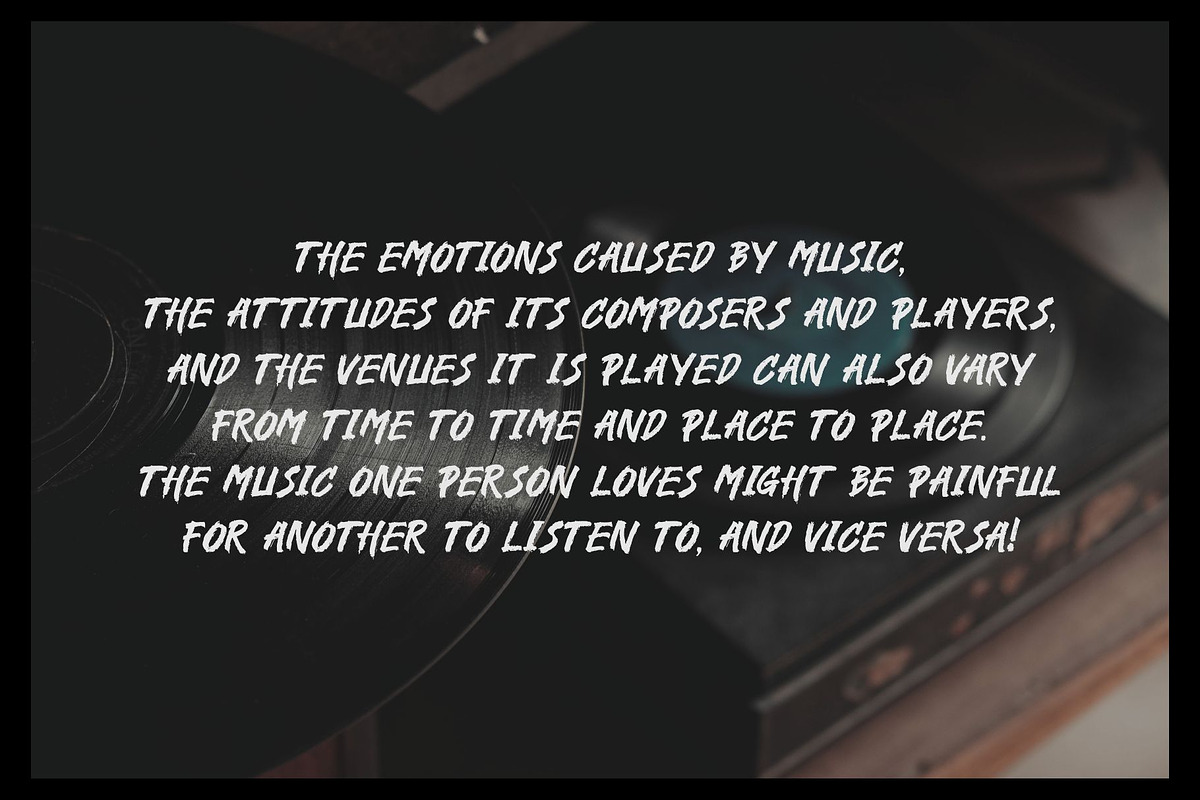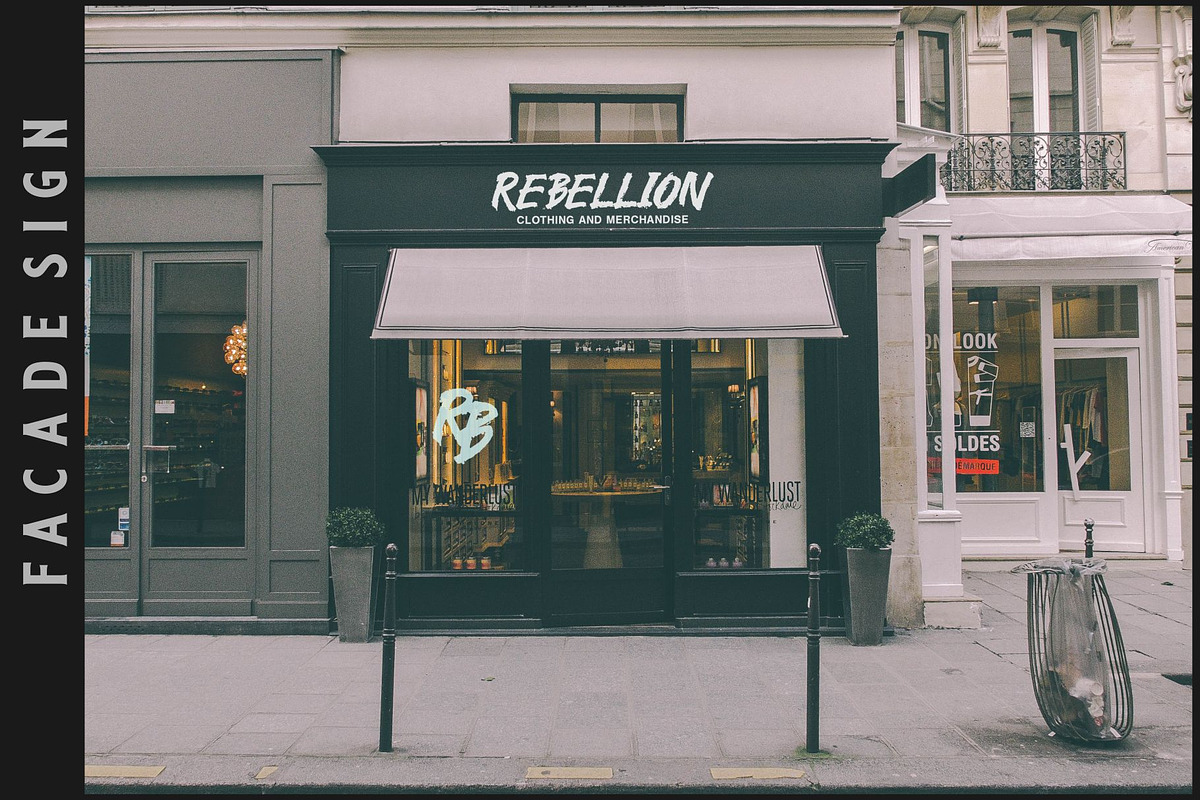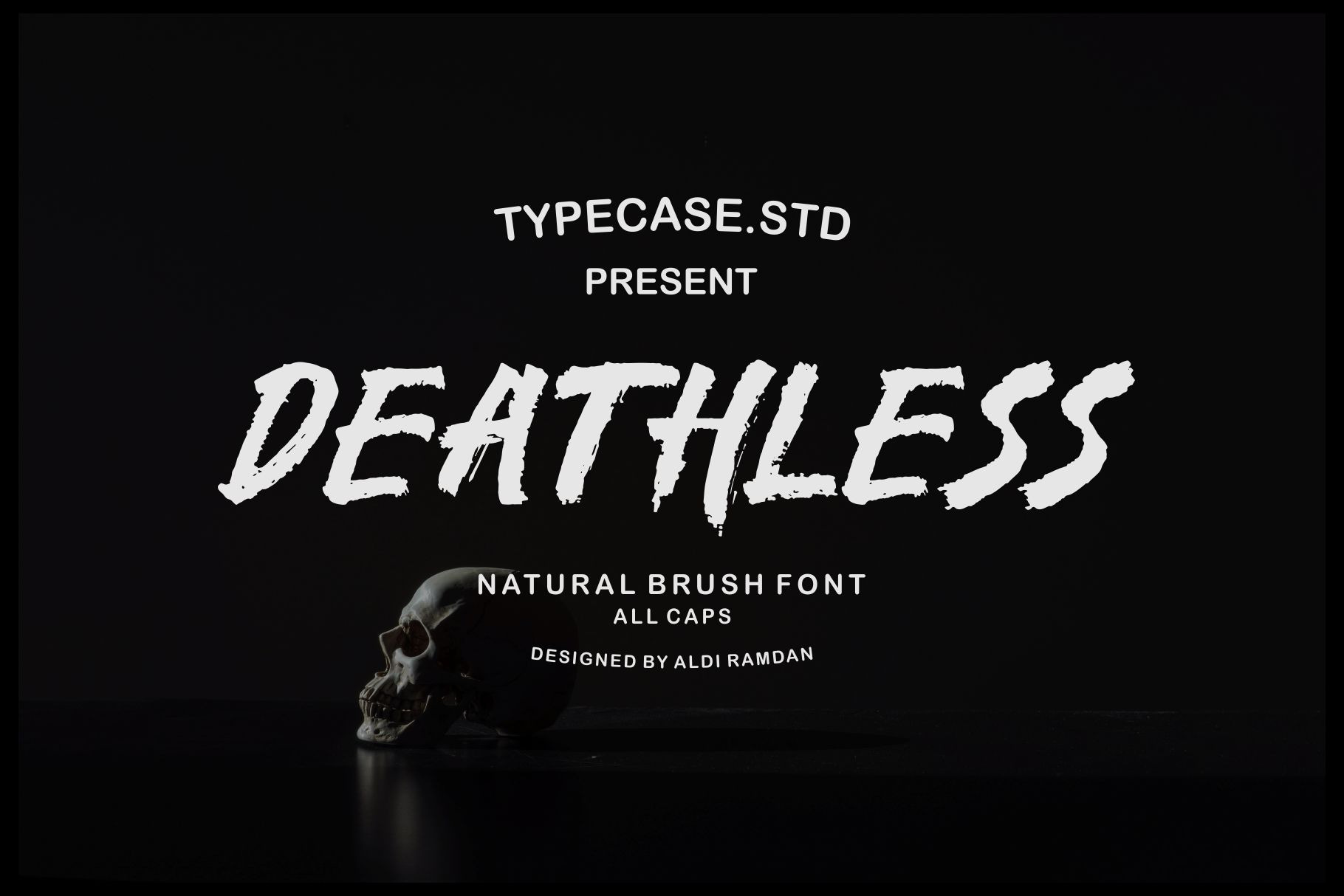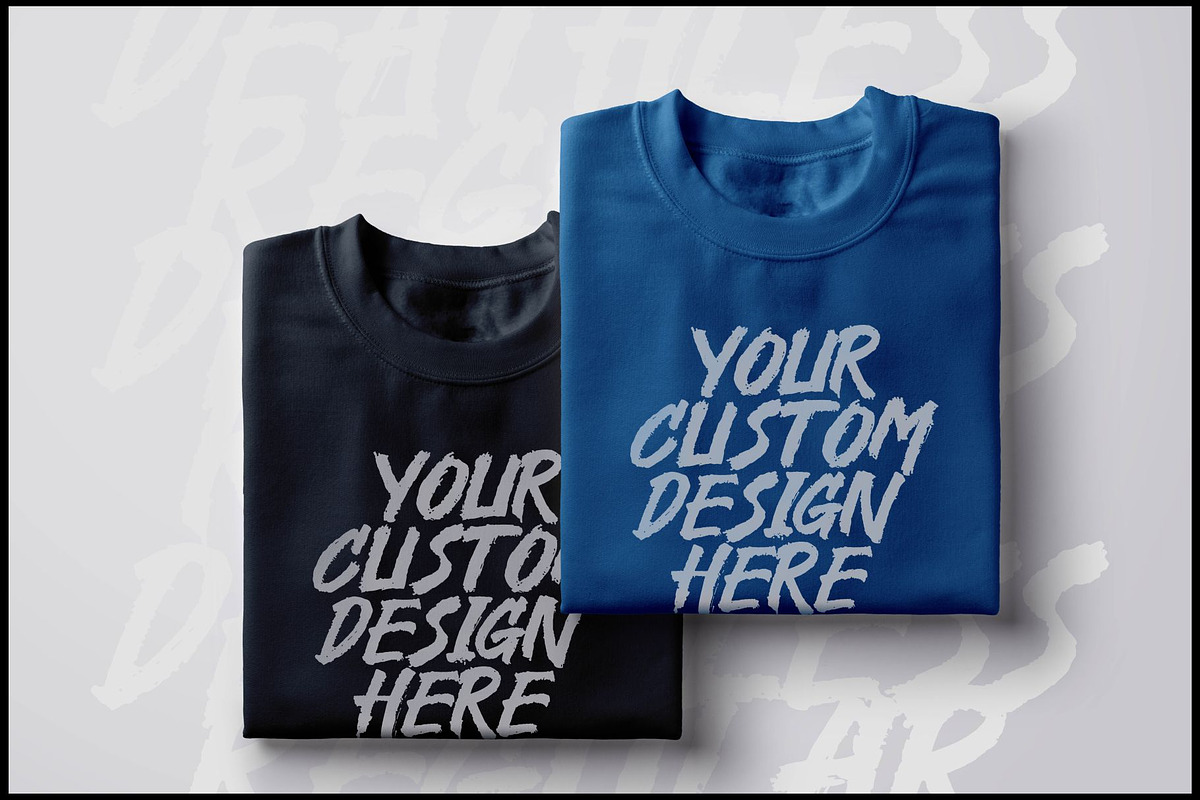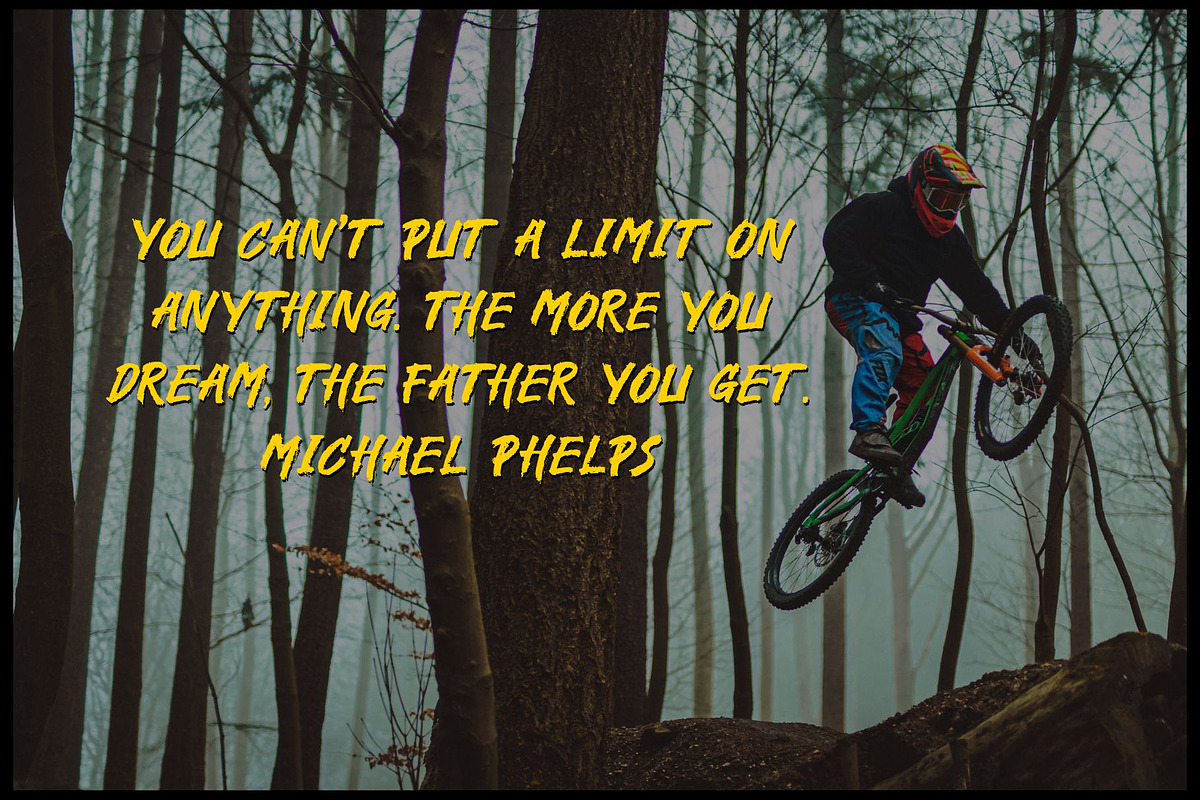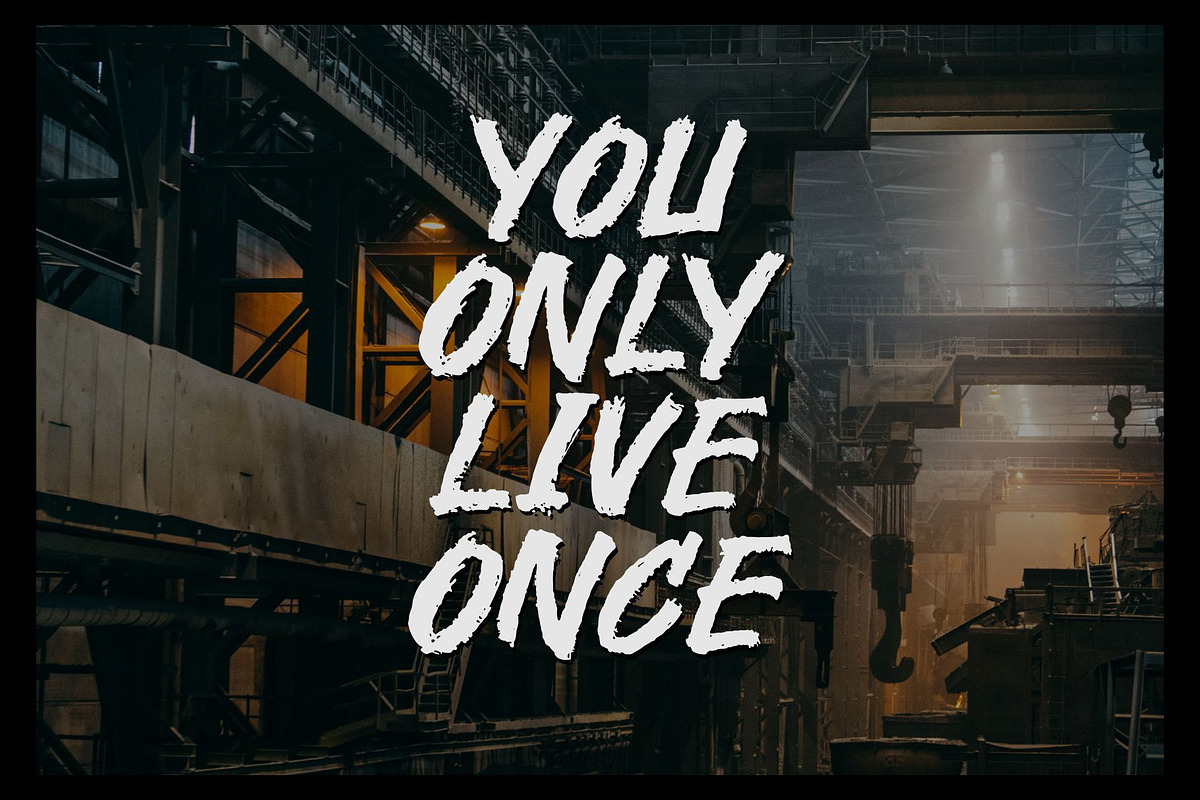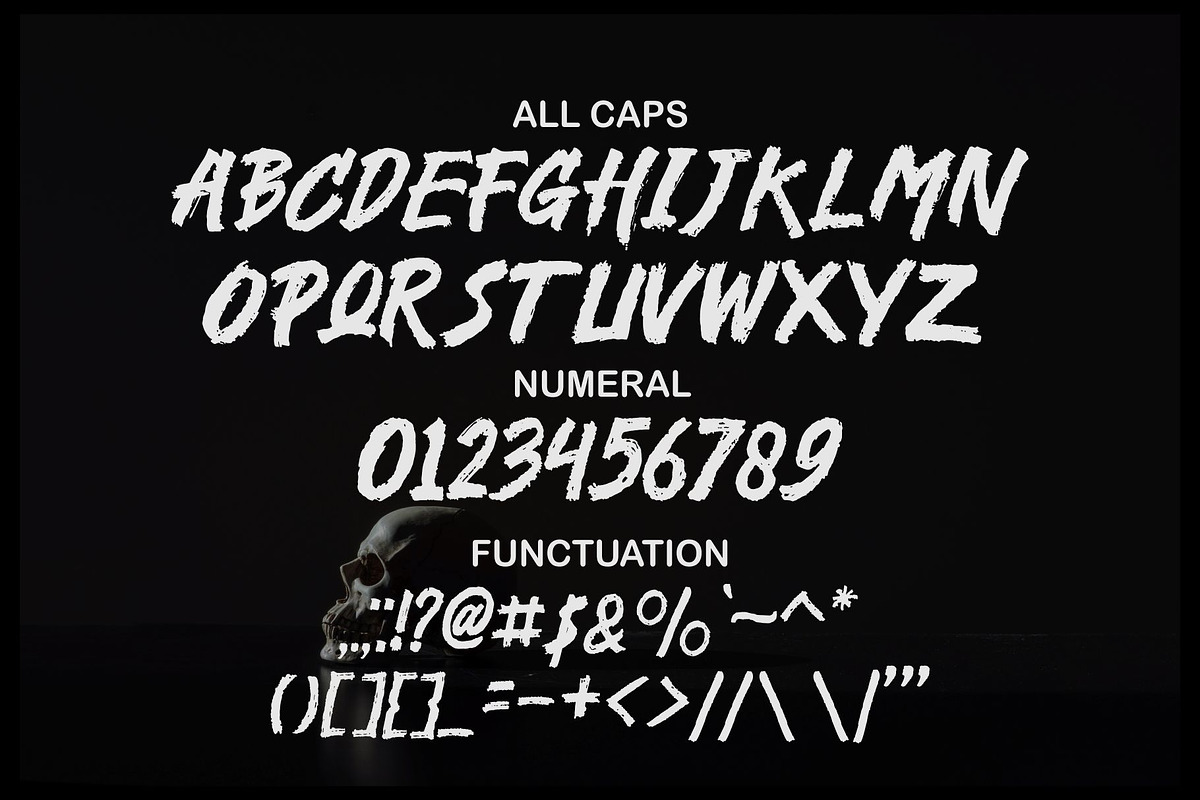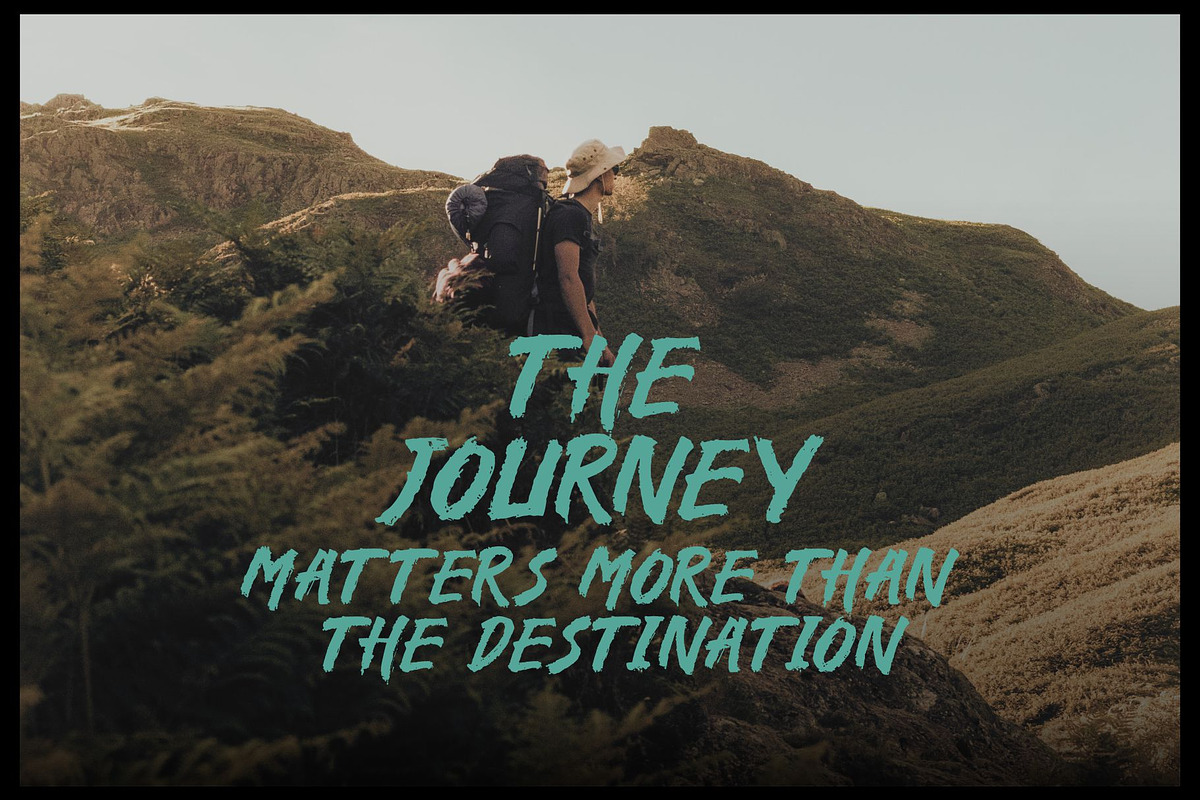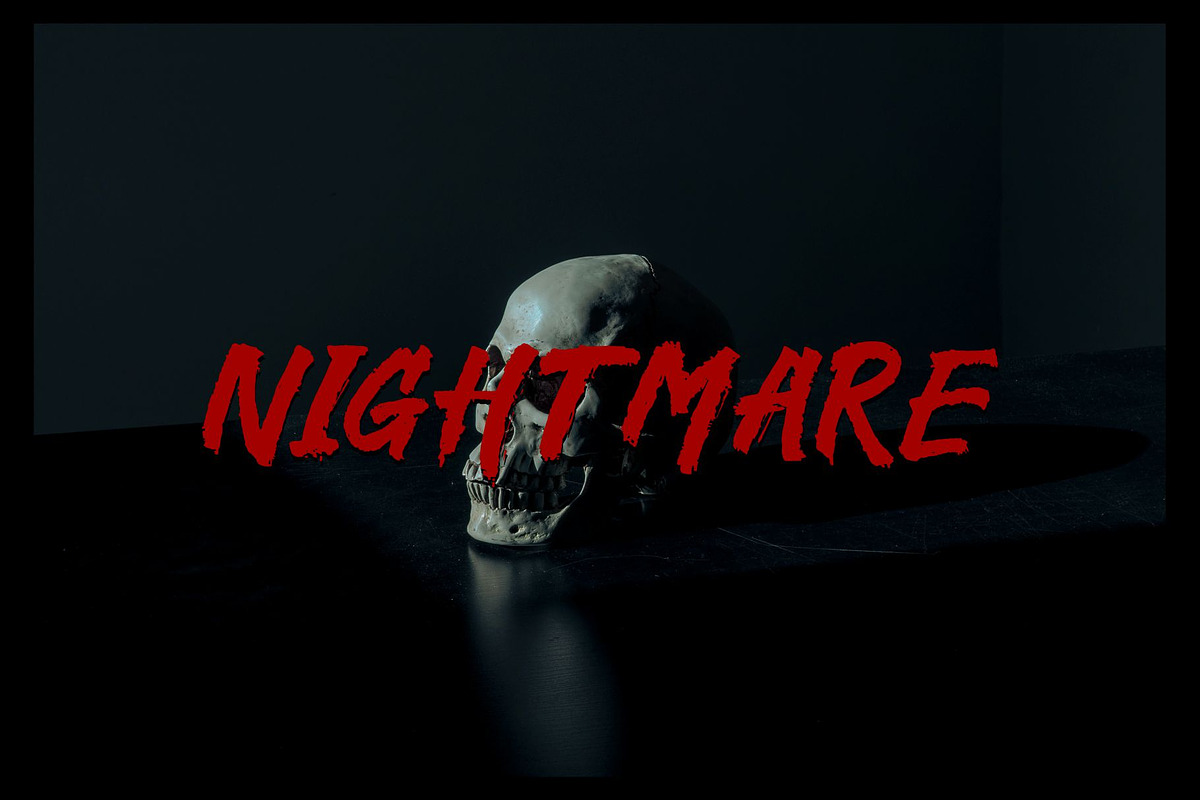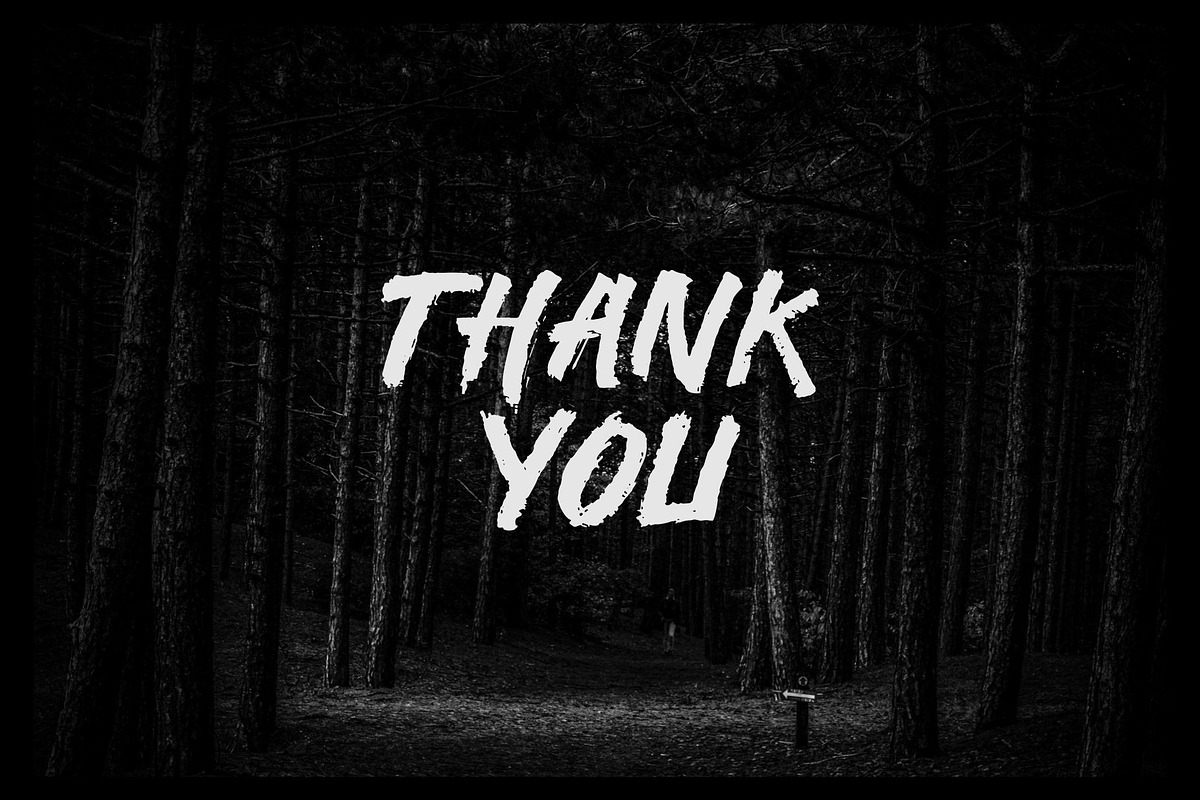
Deathless Natural Brush Font
Deathless is a new modern brush font with an irregular base, contemporary design approach, naturally handcrafted and suitable for use in title designs such as clothing, book titles, stationery designs, quotes, branding, logos, T-shirts, packaging designs, posters, and much more. letters, as well as multilingual support, numbers, punctuation marks, this font only provides uppercase.